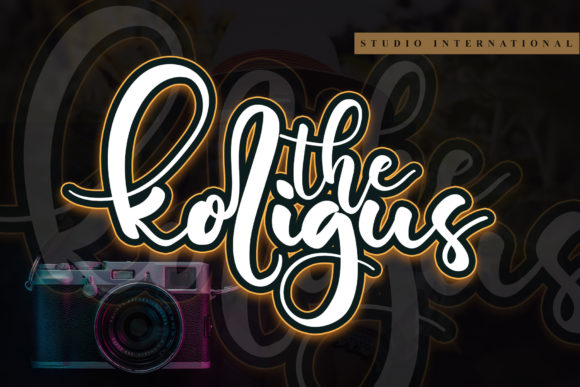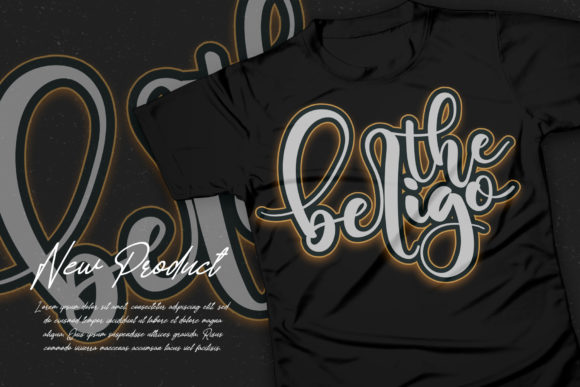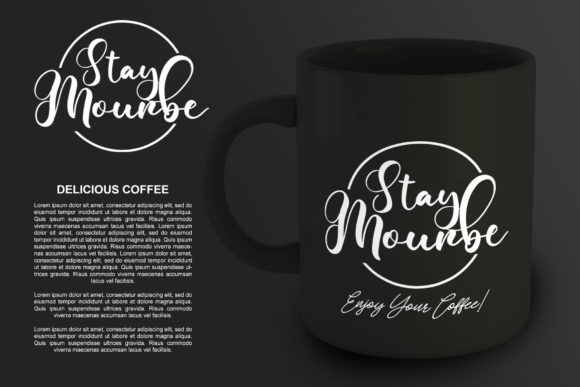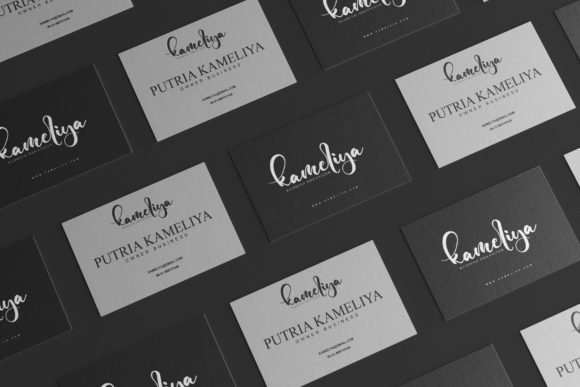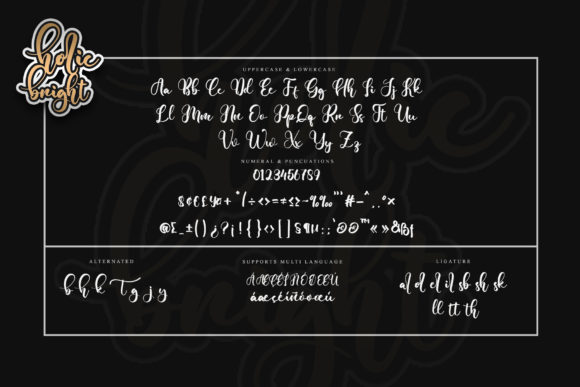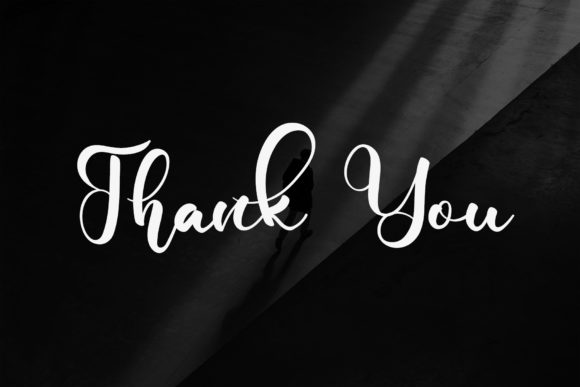
Introduction to Holic Bright Font
Holic Bright is a delicate, elegant and flowing handwritten font.
It has beautiful and well balanced characters and as a result, it matches a wide pool of designs This font is PUA encoded which means you can access all of the glyphs and swashes with ease.